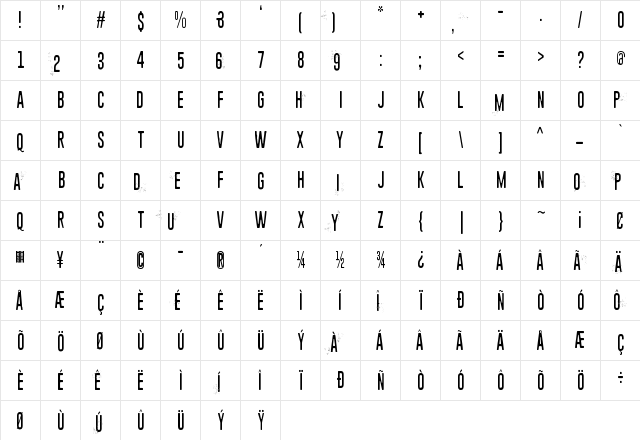
Piparivahtiperhonen Itio Regular
Design Context for Piparivahtiperhonen Itio Typeface
Piparivahtiperhonen Itio offers clean, dependable letterforms without strong stylistic allegiance, making it a practical choice for designers who need flexibility.